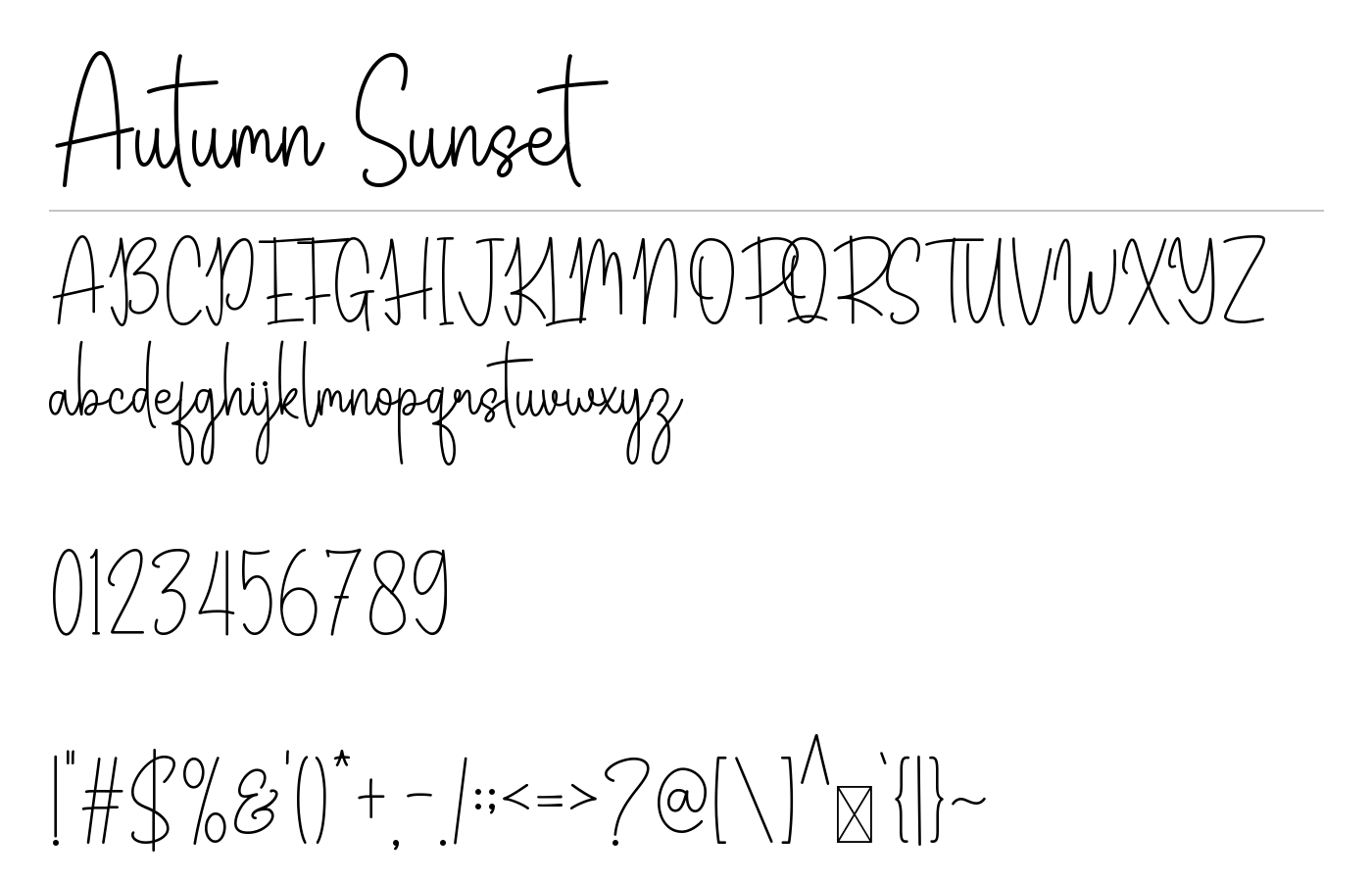
Autumn Sunset is a delicate, handwritten sans serif font with a light weight and tall, narrow letterforms that give it an elegant and airy feel. Its playful yet refined strokes, featuring rounded and slightly uneven lines, evoke a warm, approachable personality perfect for creative branding, invitations, and casual editorial use. This font works beautifully where a personal, friendly touch is needed without sacrificing legibility or style.
Autumn Sunset Font
About Autumn Sunset Font
| Designer | Risma Ramawi |